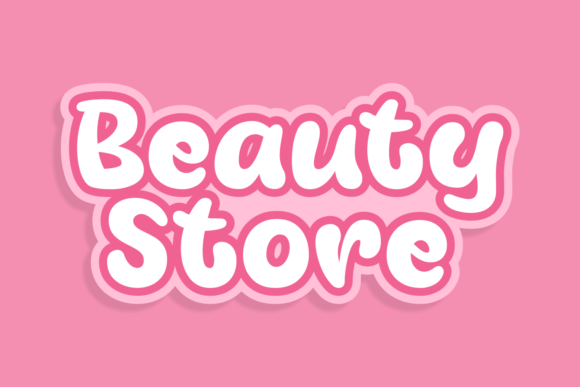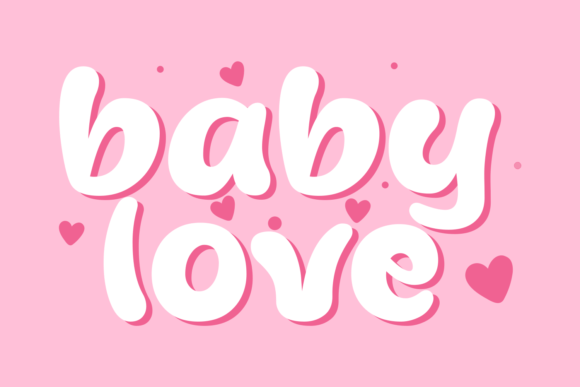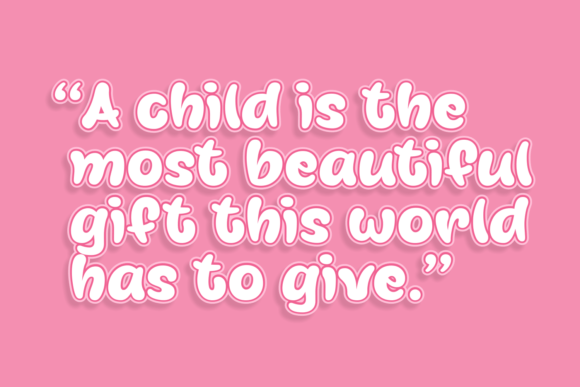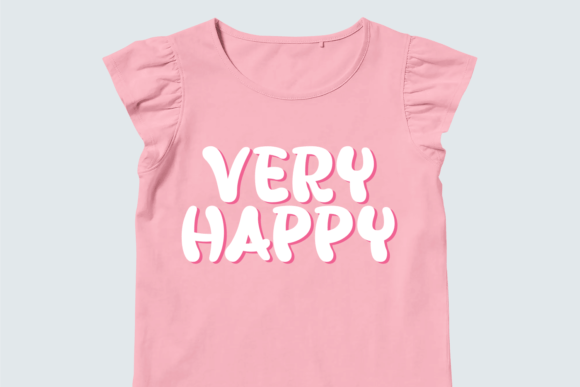
Meet Ceria Child: The Adorable Font That Brings Joy to Your Designs
Are you tired of using the same old fonts in your designs? Do you want to add a playful touch to your projects that will make them stand out? Look no further than Ceria Child, the adorable and chubby font that’s perfect for kid-centric designs, invitations, and creative projects. With its cute, rounded characters, Ceria Child adds a delightful and friendly vibe to any text, making it a charming choice for designers and crafters alike.
The Inspiration Behind Ceria Child
Ceria Child is a font that’s all about capturing the essence of childhood joy. Its design is inspired by the playful and carefree nature of kids, with rounded edges and a chubby appearance that makes every letter look like a hug. The font is perfect for designers who want to create projects that are fun, friendly, and engaging. Whether you’re working on a children’s book, a kids’ party invitation, or a craft project, Ceria Child is the perfect choice.
Key Features of Ceria Child
So, what makes Ceria Child so special? Here are just a few of its key features:
- Cute and rounded characters: Ceria Child’s characters are designed to be adorable and playful, with rounded edges that give them a soft and friendly appearance.
- Chubby font style: The font has a chubby appearance that makes every letter look like a hug.
- Perfect for kid-centric designs: Ceria Child is designed specifically for kid-centric designs, making it perfect for children’s books, kids’ party invitations, and other projects that require a playful touch.
- Easy to read: Despite its playful appearance, Ceria Child is easy to read, making it perfect for use in a variety of projects.
Uses for Ceria Child
Ceria Child is a versatile font that can be used in a variety of projects, including:
- Children’s books: Ceria Child is perfect for use in children’s books, where its playful and friendly appearance can help bring the story to life.
- Kids’ party invitations: The font is also great for kids’ party invitations, where its cute and playful appearance can help set the tone for a fun and festive celebration.
- Craft projects: Ceria Child is a great choice for craft projects, such as scrapbooking, card making, and other paper crafts.
- Digital projects: The font can also be used in digital projects, such as social media graphics, blog posts, and other online content.
Tips for Using Ceria Child
Here are a few tips for using Ceria Child in your designs:
- Use it sparingly: While Ceria Child is a fun and playful font, it can be overwhelming if used too much. Use it sparingly to add a touch of whimsy to your designs.
- Pair it with other fonts: Ceria Child can be paired with other fonts to create a unique and interesting look. Try pairing it with a sans-serif font for a fun and playful contrast.
- Experiment with colors: Ceria Child looks great in a variety of colors, so don’t be afraid to experiment and find the perfect color for your design.
Ceria Child is a font that’s all about bringing joy and playfulness to your designs. With its cute, rounded characters and chubby font style, it’s the perfect choice for kid-centric designs, invitations, and creative projects. Whether you’re a designer or a crafter, Ceria Child is a charming choice that’s sure to capture the essence of childhood joy. So why not give it a try and see how it can add a touch of whimsy to your work?
Sprinkle some cheer into your work with Ceria Child – where every letter is a hug and every word is a smile!